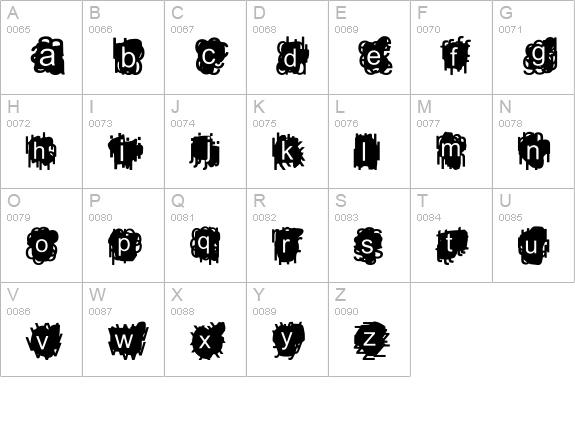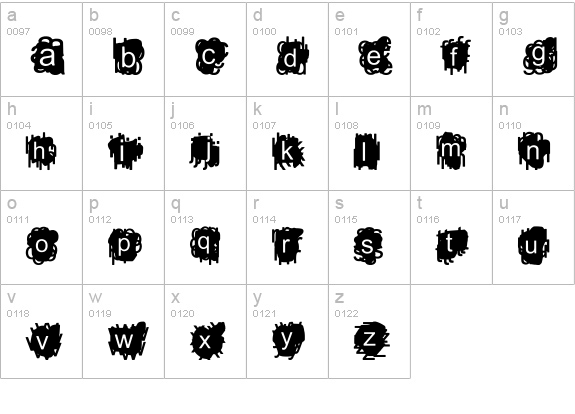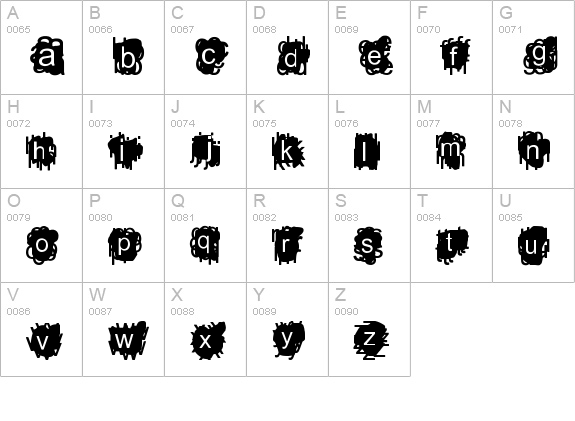
A Damn Mess Font Details
Introducing A Damn Mess, a stunning and versatile font that perfectly captures the essence of chaos and creativity. This font is bound to make a statement with its rugged and untamed design, bringing a touch of raw energy to any project. A Damn Mess font is the perfect choice for those who dare to break free from the constraints of traditional typography. Its unique letterforms exude a sense of playfulness and spontaneity, adding a dynamic edge to your designs. Whether you're creating eye-catching posters, edgy logos, or rebellious social media graphics, this font is sure to leave a lasting impression. What sets A Damn Mess font apart is not only its striking appearance but also its accessibility. This font is freely available to download at FontsMarket.com, making it easily accessible to designers and creatives alike. With just a few clicks, you can bring this wild and free-spirited font into your design arsenal, ready to unleash its untamed energy on your projects. Don't be afraid to embrace the messiness and embrace the beauty of imperfection. A Damn Mess font is here to inspire you to push the boundaries and step outside of the ordinary, allowing your creativity to run wild. So go ahead, download this free font today and let it infuse your designs with a touch of chaos and a whole lot of character.